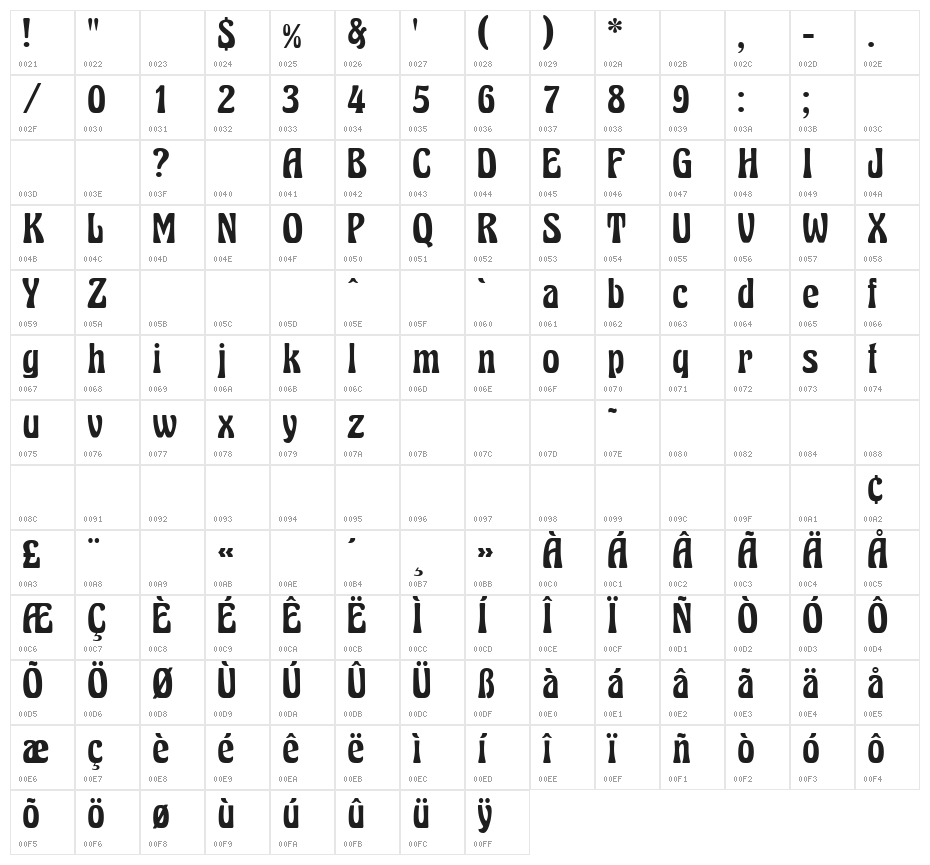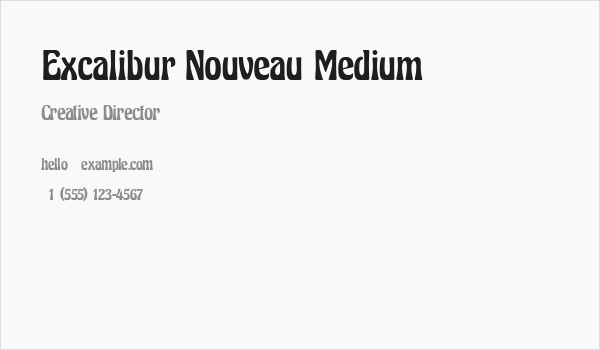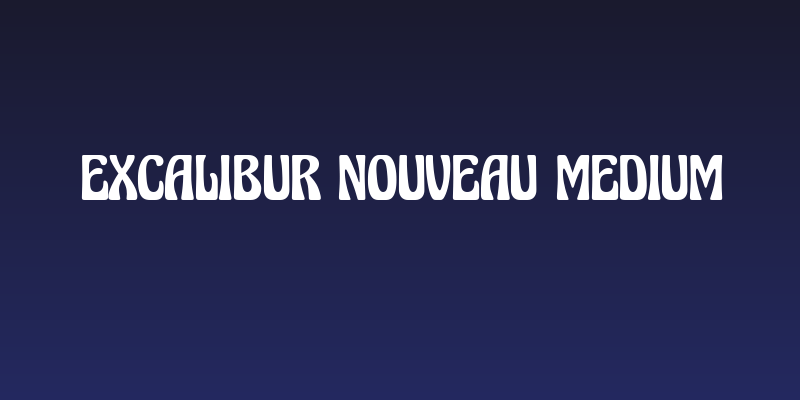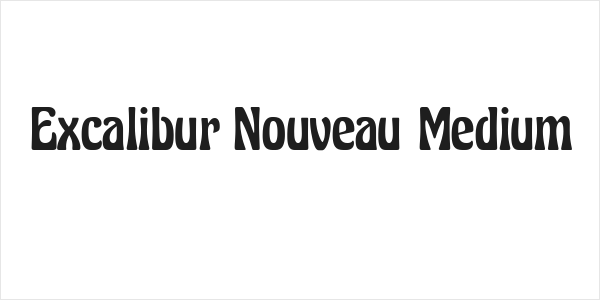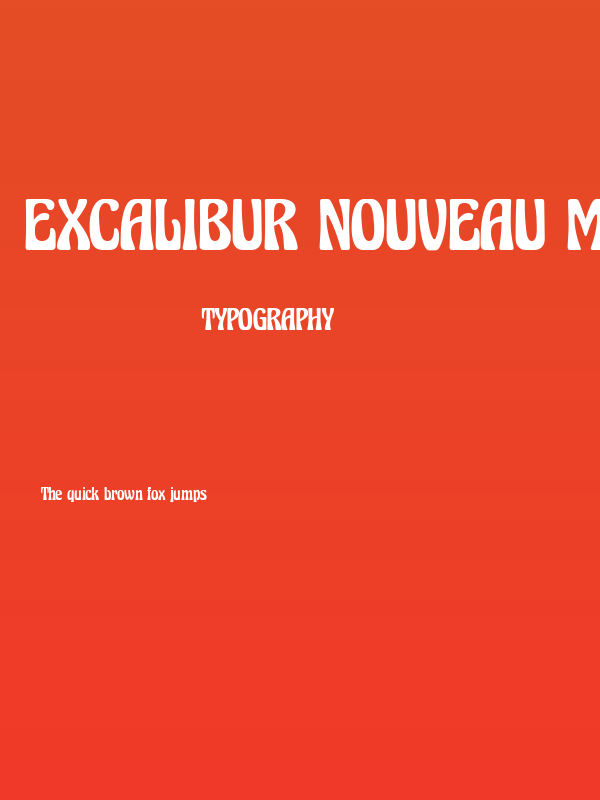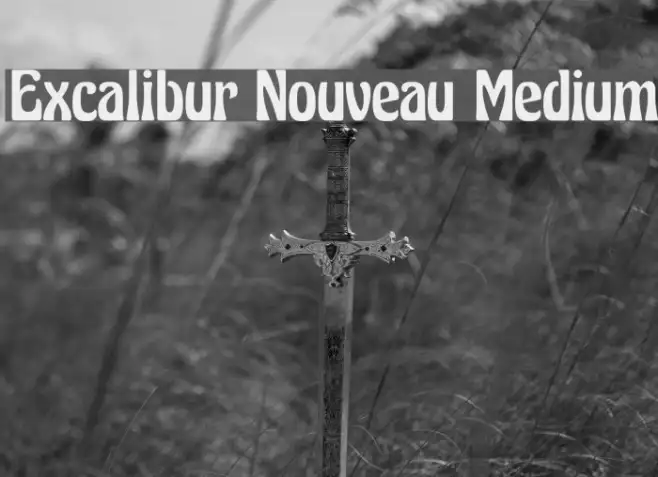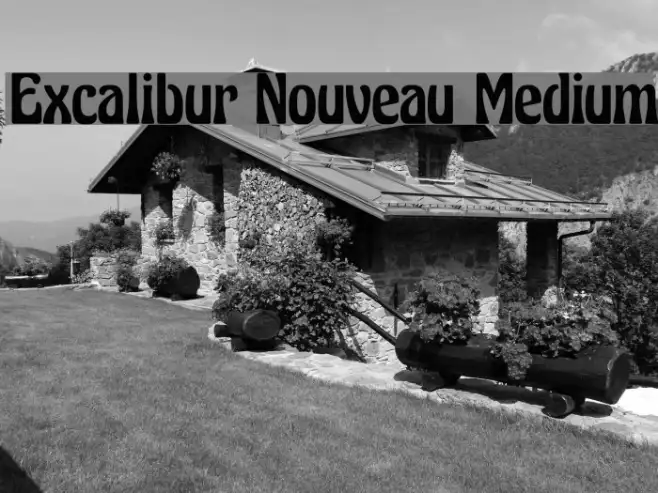
Excalibur Nouveau Medium Font
Excalibur Nouveau Medium Description
This font features a bold and expressive style with a unique blend of modern and vintage elements. The characters are thick and rounded, with a playful yet sophisticated appearance. The uppercase letters have a strong presence, while the lowercase letters maintain a consistent flow. Numbers are equally bold, ensuring readability and impact. Special characters are creatively designed, adding to the font's overall charm. The font's design is reminiscent of Art Nouveau influences, making it suitable for projects that require a touch of elegance and flair.
| Overall Style | Vintage, Decorative |
| Proposed Projects | Perfect for branding, posters, packaging, and any project needing a bold, artistic touch. |